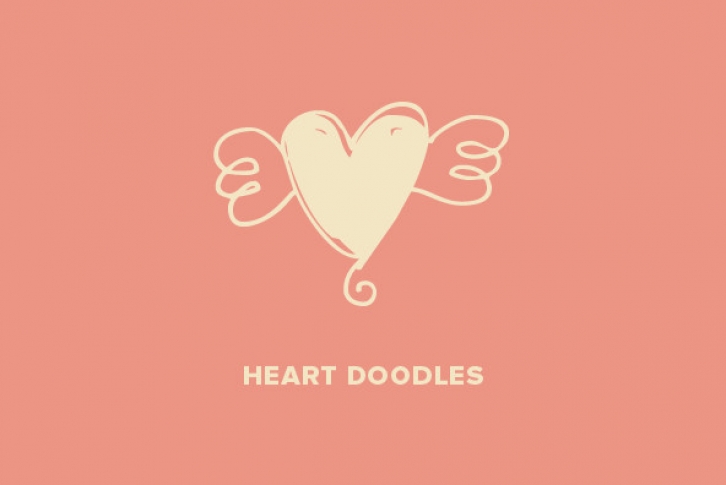
"29 hearts to say ""I love you"" through out the year. Some are stand-alone hearts and others have matching hearts for creating all-over heart patterns or a series os similar but slightly different hearts."